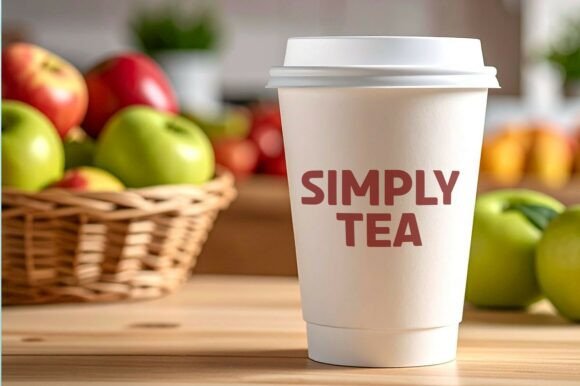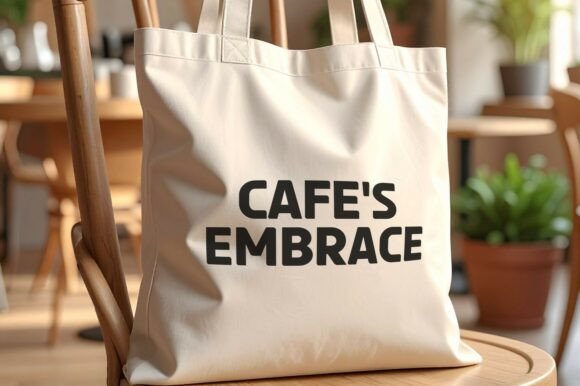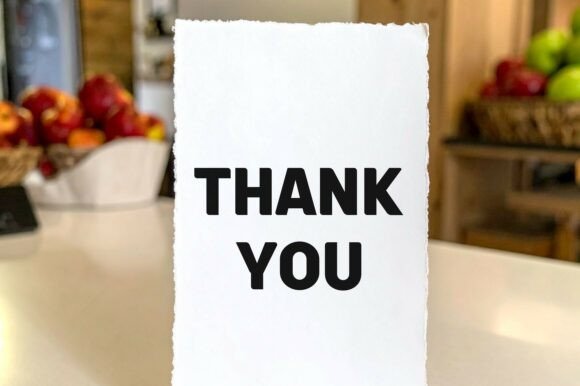
Discover the Impactful World of Apple Tea Font
Have you ever been in the middle of a design project, and suddenly, you’re stuck on finding the perfect font? I recall a recent experience where I was working on a branding project for a new tea company. The client wanted a font that was bold, modern, and could convey a sense of confidence. After hours of searching, I stumbled upon Apple Tea Font, and it was love at first sight! In this article, we’ll dive into the world of Apple Tea Font, exploring its features, uses, and everything in between.
A Bold and Impactful Font for Modern Designs
Apple Tea Font is a sans-serif display font designed for maximum clarity and modern appeal. Its strong, uppercase letterforms feature clean, defined lines and a commanding presence, ensuring high readability and immediate visual recognition. This font is perfect for powerful headlines and prominent branding, conveying a sense of confidence and directness.
What I Love About Apple Tea Font
- ✨ Bold and Impactful: Apple Tea Font is designed to make a statement. Its robust structure and clean lines make it perfect for headlines and titles.
- ✅ High Readability: The font’s strong letterforms ensure that your message is conveyed clearly, even at a distance.
- 🌟 Modern Appeal: Apple Tea Font has a contemporary aesthetic that’s perfect for brands looking to establish a modern identity.
- 🎉 Easy to Use: The font comes with a complete set of uppercase letters, numerals, and essential punctuation, making it easy to use for a variety of design projects.
While Apple Tea Font is an excellent choice for many design projects, there are a few things to keep in mind:
- 🤔 Limited Versatility: As a display font, Apple Tea is best suited for headlines and titles. It may not be the best choice for body text or longer content.
- ⚠️ Lack of Italic or Oblique Styles: Apple Tea Font is only available in a single style, which may limit its use in certain design projects.
Apple Tea Font comes with a range of OpenType features and glyphs that can enhance your designs. Here are a few examples:
- Ligatures: Apple Tea Font features ligatures that can help to create a more cohesive and polished look.
- Stylistic Alternates: The font includes stylistic alternates that can add a touch of personality to your designs.
The Backstory of Apple Tea Font
Apple Tea Font was designed with the goal of creating a bold and impactful font that could convey a sense of confidence and modernity. The design process involved experimenting with different letterforms and shapes to create a unique and recognizable aesthetic.
| Font Name | Apple Tea Font |
| Author | wep – Wahyu Eka Prasetya |
| What is Apple Tea Font? | Apple Tea Font is a bold and impactful sans-serif display font designed for maximum clarity and modern appeal. |
| What is Apple Tea Font best used for? | Apple Tea Font is best used for powerful headlines and prominent branding, conveying a sense of confidence and directness. |
| Can I use Apple Tea Font for body text? | While Apple Tea Font can be used for body text, it’s primarily designed for headlines and titles. A more readable font may be better suited for longer content. |
| Is Apple Tea Font available in different styles? | Apple Tea Font is currently only available in a single style, but it may be updated with additional styles in the future. |